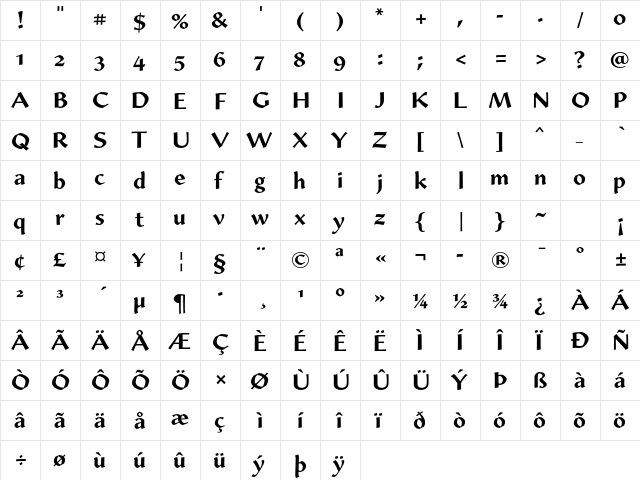
Amanda Std Bold
Design Context for Amanda Std Typeface
Amanda Std offers clean, dependable letterforms without strong stylistic allegiance, making it a practical choice for designers who need flexibility. The heavy weight commands attention and anchors typographic hierarchies.